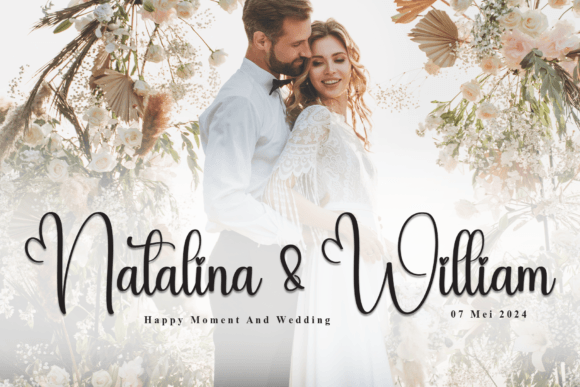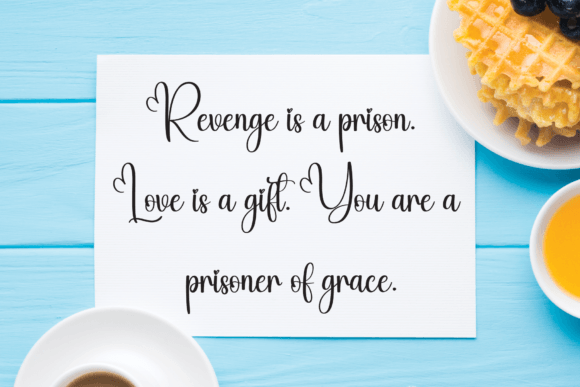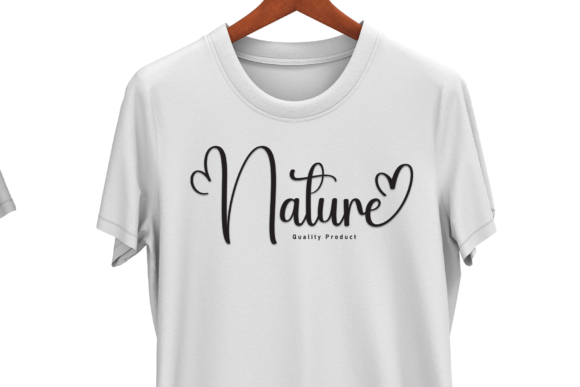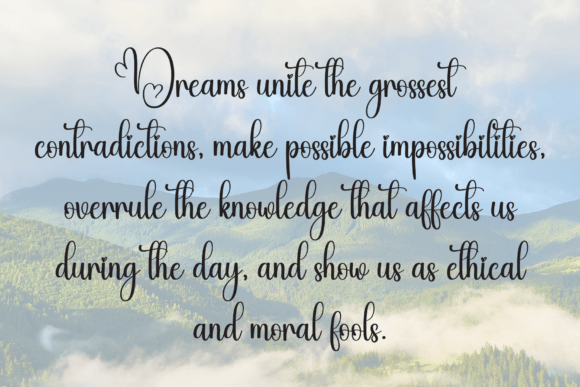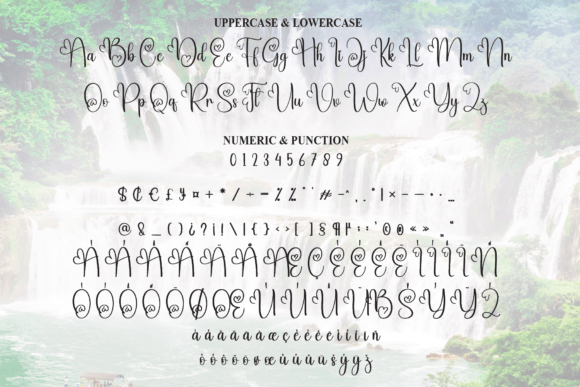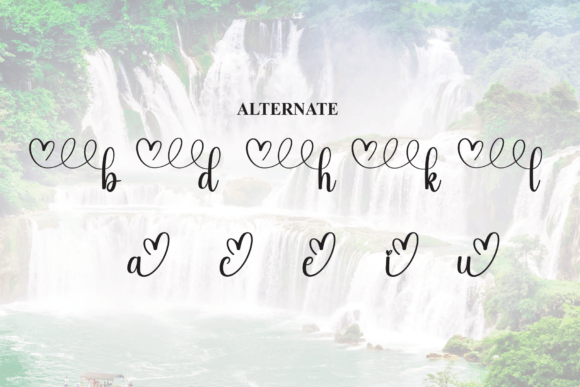
Cascade Font: Add a Touch of Warmth and Personality to Your Designs
In the world of typography, fonts play a crucial role in conveying the tone and personality of a design. For designers and crafters looking to add a sweet, personal touch to their projects, the Cascade font is an excellent choice. This charming handwritten font is designed to bring a sense of warmth and friendliness to your designs, making it perfect for invitations, greeting cards, and cozy branding.
The Charm of Cascade Font
Cascade is a beautifully crafted handwritten font that boasts smooth, flowing strokes and a friendly character. Its elegant yet approachable design makes it an ideal choice for a wide range of projects, from formal invitations to casual greeting cards. The font’s charming personality shines through in its subtle imperfections and organic feel, giving your designs a personal touch that’s hard to replicate with more formal fonts.
Perfect for Invitations and Greeting Cards
Invitations and greeting cards are special occasions that call for a personal touch. Cascade font is specifically designed to bring a sense of warmth and sincerity to these types of projects. Its flowing strokes and friendly character make it perfect for:
- Wedding invitations and save-the-date cards
- Birthday cards and party invitations
- Holiday greeting cards and festive announcements
- Personalized stationery and letterhead
Cozy Branding with Cascade Font
Branding is all about creating a personality for your business or product. Cascade font can help you achieve a cozy and inviting brand image that’s perfect for:
- Food bloggers and recipe websites
- Small businesses and local artisans
- Wellness and self-care brands
- Travel and hospitality companies
Why Choose Cascade Font?
With so many fonts available, why choose Cascade? Here are just a few reasons why this charming handwritten font stands out:
- Unique personality: Cascade font has a distinct personality that sets it apart from more formal fonts.
- Versatility: This font can be used for a wide range of projects, from invitations to branding.
- Easy to read: Despite its handwritten nature, Cascade font is surprisingly easy to read, making it perfect for longer texts.
- High-quality design: Cascade font is designed with high-quality craftsmanship, ensuring that it looks great in any context.
Tips for Using Cascade Font
To get the most out of Cascade font, here are a few tips to keep in mind:
- Pair with contrasting fonts: Pair Cascade font with a contrasting font to create visual interest and hierarchy.
- Use for headlines and body text: Cascade font works well for both headlines and body text, making it a versatile choice.
- Experiment with colors: Try pairing Cascade font with different colors to create a unique look that matches your brand or project’s personality.
In conclusion, Cascade font is a charming handwritten font that’s perfect for designers and crafters looking to add a sweet, personal touch to their projects. With its smooth, flowing strokes and friendly character, it’s ideal for invitations, greeting cards, and cozy branding. Whether you’re looking to create a unique invitation or a distinctive brand image, Cascade font is sure to bring warmth and personality to your designs.